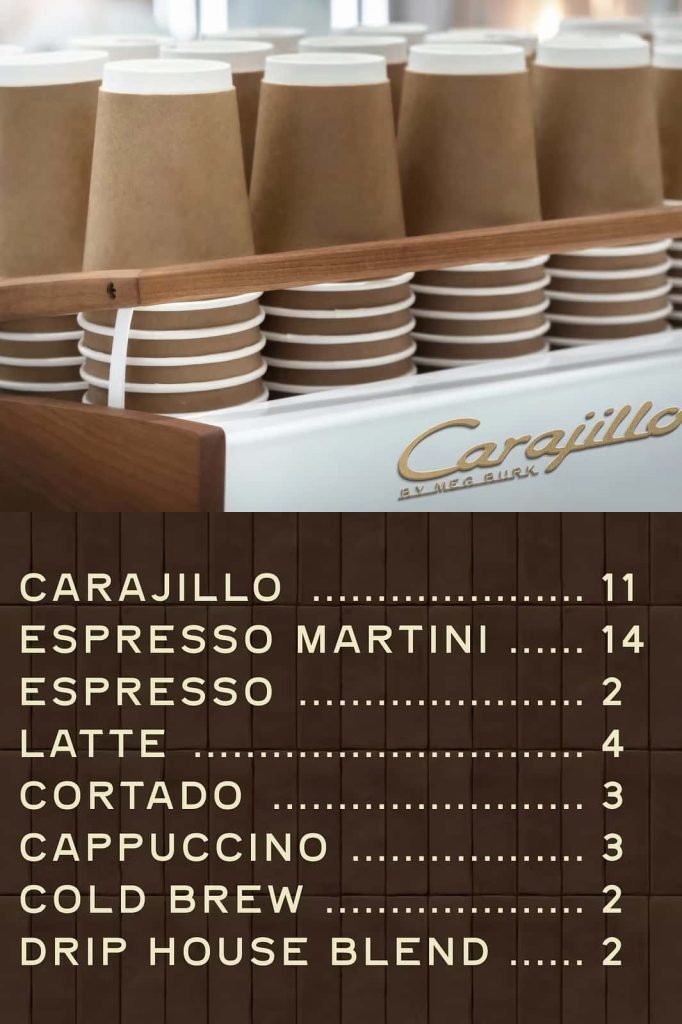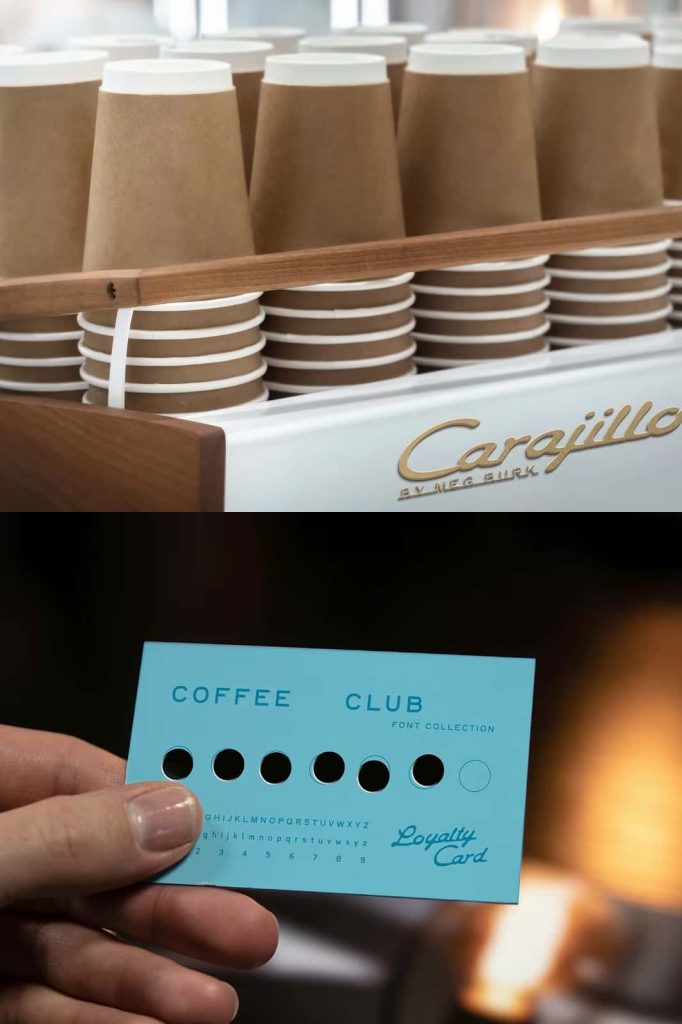
Espresso Machine Font Pack – Vintage Charm Meets Industrial Elegance
Espresso Machine Font Pack draws its inspiration from the classic metal nameplates that adorn vintage espresso machines. Each letterform captures the bold craftsmanship, industrial detailing, and nostalgic charm of mid-century café culture. Designed for creators who appreciate the artistry of mechanical design and the warmth of handcrafted typography, this font collection brings sophistication and authenticity to every project.
If you’re the type who notices the intricate emblems on espresso machines while sipping your coffee, this font pack was made for you. Every curve, line, and serif reflects the mechanical precision and timeless elegance of brands like La Marzocco—those iconic designs that have defined café aesthetics for decades. Espresso Machine Font Pack is more than a typeface; it’s a celebration of craftsmanship, coffee culture, and vintage design heritage.
Inspired by the Beauty of Café Culture
Espresso Machine Font Pack emerged from a love for the industrial beauty of espresso machines. The designer’s fascination with the emblems and nameplates found on café equipment led to the creation of a typeface that embodies both strength and artistry. These metal badges often feature bold lettering, intricate engraving, and timeless design—qualities that have been meticulously captured and translated into this modern type collection.
Each letter in the font reflects a sense of mechanical precision and artisanal quality. The smooth curves and strong geometric forms echo the textures of polished brass, brushed steel, and engraved metal surfaces. Espresso Machine Font Pack pays homage to the era when typography was as much about craftsmanship as it was about communication, blending nostalgia with modern usability.
Perfect for Branding, Logos, and Packaging
From cafés and roasteries to lifestyle brands and artisan products, Espresso Machine Font Pack is an excellent choice for designers looking to add a vintage yet professional touch. Its bold and distinctive aesthetic makes it perfect for:
- Branding and Logos: Build a visual identity that feels authentic, strong, and timeless. The industrial charm of this typeface ensures your brand stands out with confidence.
- Product Packaging: Ideal for coffee products, artisanal goods, or handmade items that require a nostalgic yet refined look.
- Posters and Signage: Create eye-catching promotional materials that evoke retro café style and mechanical elegance.
- Merchandise and Apparel: Add vintage character to t-shirts, tote bags, mugs, and more with bold, stylish typography.
- Editorial Design: Perfect for magazine spreads, menu layouts, and advertisements with a touch of industrial sophistication.
Each variation in the font pack maintains high readability and striking visual presence. Whether you’re designing digital graphics or traditional print materials, Espresso Machine Font Pack ensures consistency and character in every detail.
Timeless Design with a Mechanical Edge
Espresso Machine Font Pack captures the delicate balance between artistry and engineering. Its bold forms are inspired by vintage manufacturing labels, where design met precision. The result is a typeface that feels simultaneously nostalgic and modern, perfectly